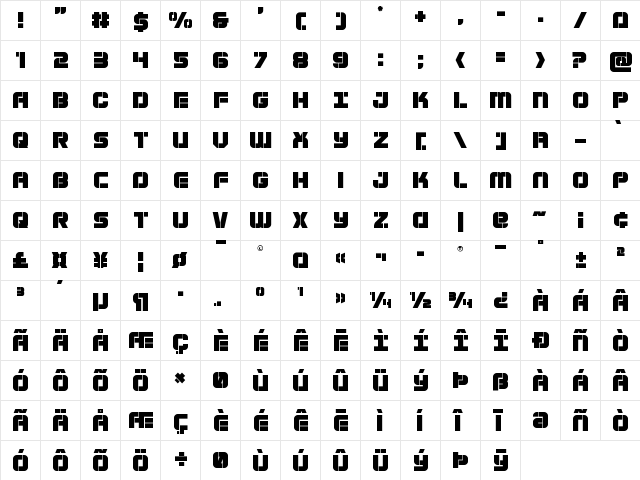
Super Submarine Regular
Design Context for Super Submarine Typeface
Super Submarine is a composed and adaptable typeface that performs quietly and consistently across a wide range of design contexts.